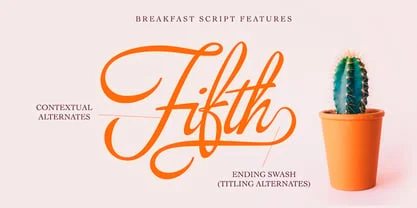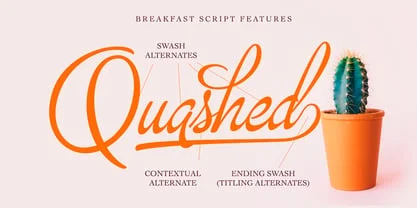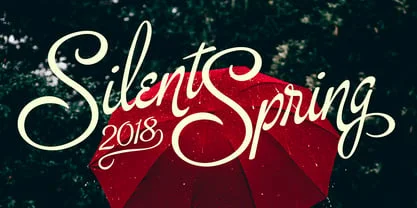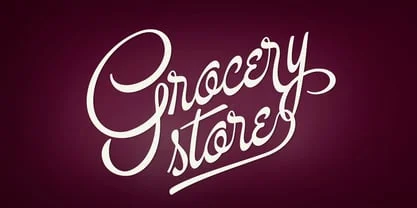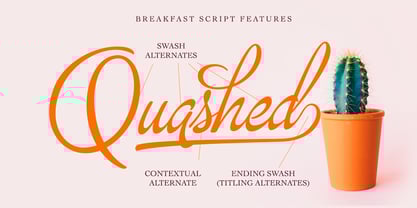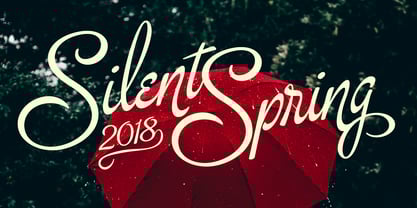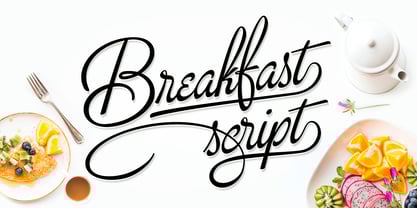
Breakfast Script Font
A good typeface communicates tone before a single word is read. Breakfast Script achieves this through visual harmony and precise spacing. The typeface brings an elegant, calligraphic sensibility to a broad range of creative disciplines, with controlled contrast that rewards close inspection that holds up whether the work is print-first or screen-first.
In practice, Breakfast Script proves particularly effective for annual reports, wedding invitations, feminine branding, brand identity systems, web design. Designers reaching for it find that the type decisions feel resolved rather than laboured — a useful quality when client timelines are tight.
The range of applications extends to editorial layouts, luxury stationery, advertising campaigns, event signage. That breadth is deliberate: the proportions and spacing were stress-tested across a wide range of mock briefs before the typeface was finalised.
Brand strategists building visual languages find Breakfast Script a reliable choice for projects that demand both personality and restraint. The design avoids the self-conscious quirkiness that dates quickly, settling instead for considered distinctiveness that holds up over time.